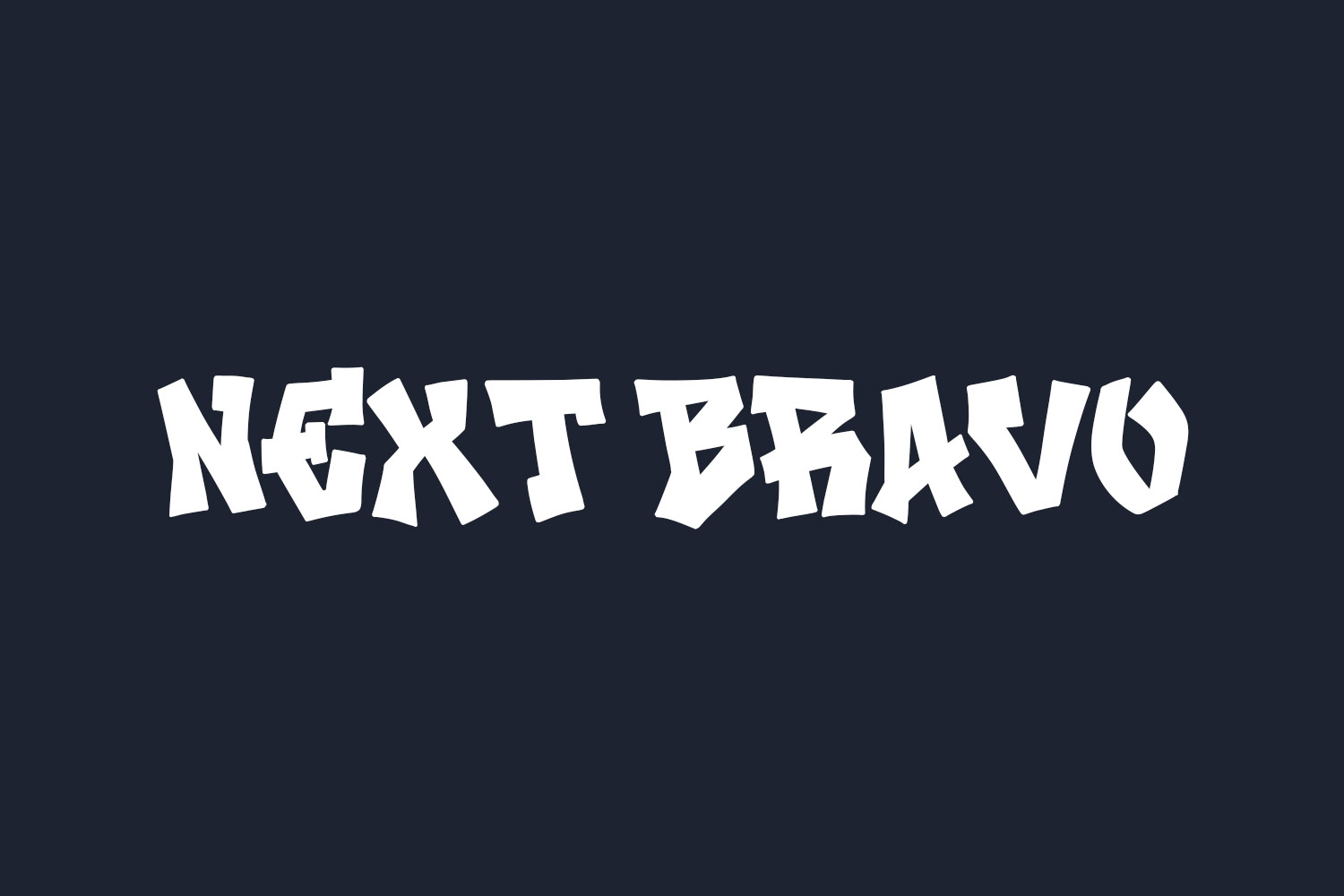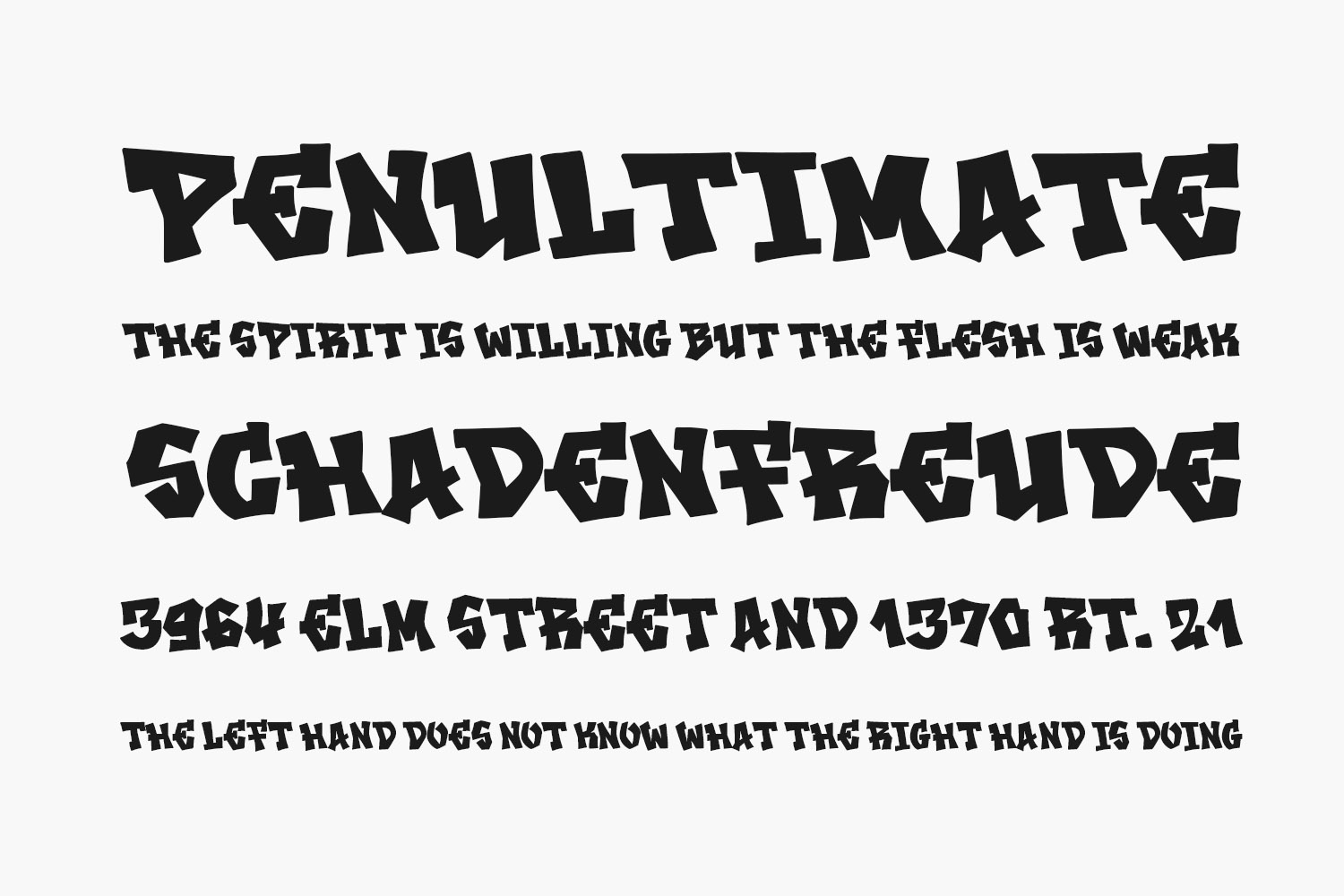
Explore the contemporary allure of Next Bravo Free Font, an ideal graffiti font for posters, logos, magazines, book covers, banners, and beyond! Elevate your designs with this extraordinary font, seamlessly adaptable to a diverse range of projects. Integrate it into your creative concepts and watch them shine with distinction. Next Bravo Free Font is free for personal or commercial use.